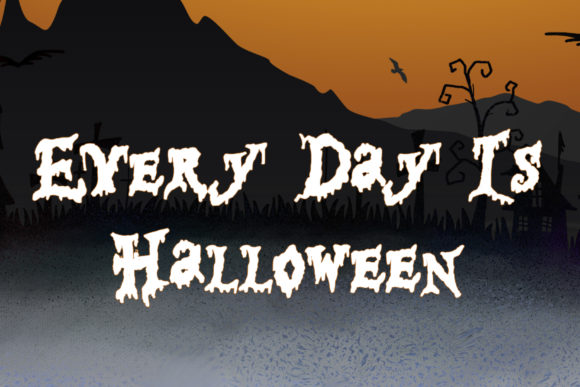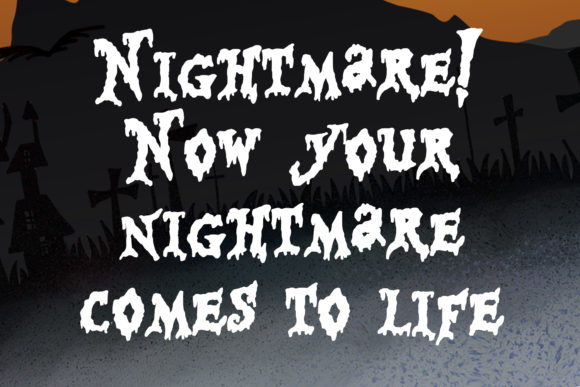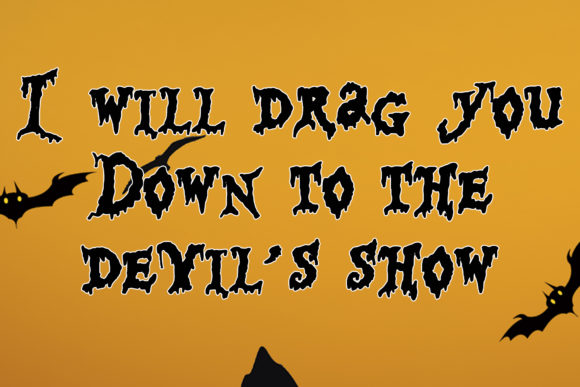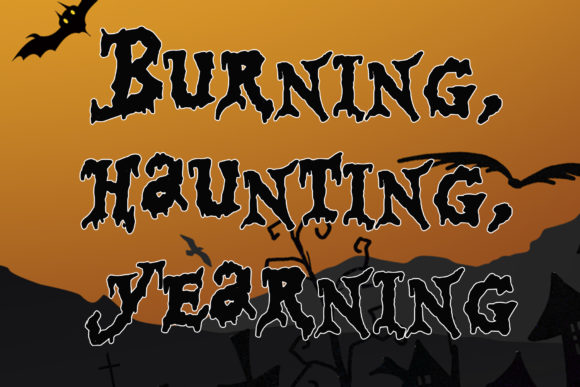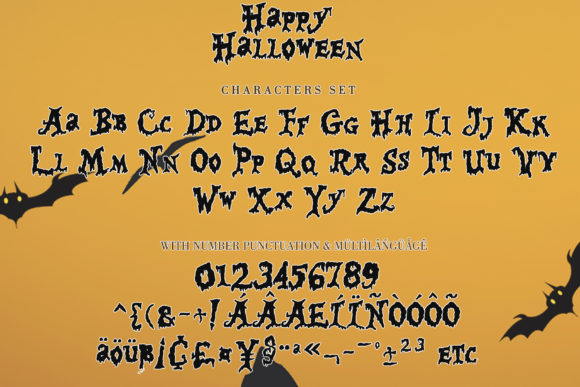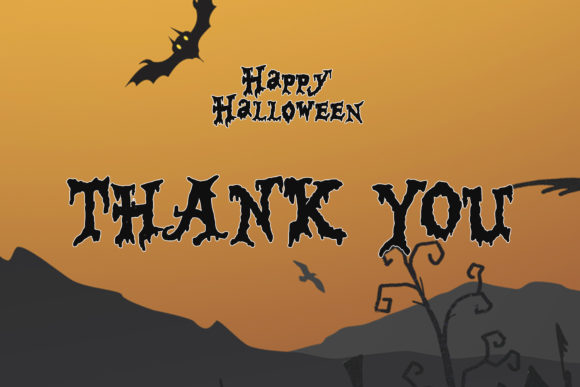
Happy Halloween Font: The Perfect Choice for a Spooktacular Celebration
Halloween is just around the corner, and it’s the perfect time to get creative with your designs, crafts, and party decorations. One of the most crucial elements in creating a spooky atmosphere is the font you choose. That’s where the Happy Halloween font comes in – a fantastic, eerie, and fun font that’s sure to make your Halloween designs stand out. In this article, we’ll dive into the world of Happy Halloween font, exploring its features, and how you can use it to create a howling good time.
The Spooky Charm of Happy Halloween Font
The Happy Halloween font is designed to capture the essence of the spookiest time of the year. Its unique and quirky appearance is sure to add a touch of whimsy to your designs, making it perfect for a variety of applications, from party invitations and decorations to social media graphics and craft projects. The font’s distressed and worn look gives it a delightfully eerie feel, making it an excellent choice for designers and crafters looking to create a hauntingly beautiful atmosphere.
Key Features of Happy Halloween Font
- Unique and Quirky Design: The Happy Halloween font boasts a one-of-a-kind design that’s sure to grab attention.
- Distressed and Worn Look: The font’s worn and distressed appearance adds to its spooky charm.
- Eerie and Fun: The font strikes the perfect balance between eerie and fun, making it suitable for a wide range of applications.
- Versatile: The Happy Halloween font can be used for various design projects, from party decorations to craft projects.
Using Happy Halloween Font for Your Designs
The Happy Halloween font is incredibly versatile and can be used for a wide range of design projects. Here are a few ideas to get you started:
- Party Invitations: Create spooky and fun party invitations that will set the tone for your Halloween celebration.
- Decorations: Use the Happy Halloween font to create eye-catching decorations, such as banners, signs, and garlands.
- Social Media Graphics: Create engaging social media graphics that will make your followers howl with excitement.
- Craft Projects: Use the Happy Halloween font to add a touch of spooky charm to your craft projects, such as Halloween-themed cards, gift tags, and DIY decorations.
Tips and Tricks for Using Happy Halloween Font
To get the most out of the Happy Halloween font, here are a few tips and tricks to keep in mind:
- Experiment with Colors: Try pairing the Happy Halloween font with a range of colors, from bold and bright to dark and muted, to create different effects.
- Mix and Match Fonts: Combine the Happy Halloween font with other fonts to create a unique and eye-catching look.
- Add Graphics and Images: Use graphics and images to enhance your designs and add an extra layer of spooky charm.
The Happy Halloween font is the perfect choice for designers and crafters looking to create a spooktacular celebration. Its unique and quirky design, distressed and worn look, and eerie yet fun appearance make it an excellent addition to any Halloween design project. With its versatility and range of applications, the Happy Halloween font is sure to inspire your creativity and help you create a howling good time. So why wait? Get creative with the Happy Halloween font and make this Halloween one to remember!